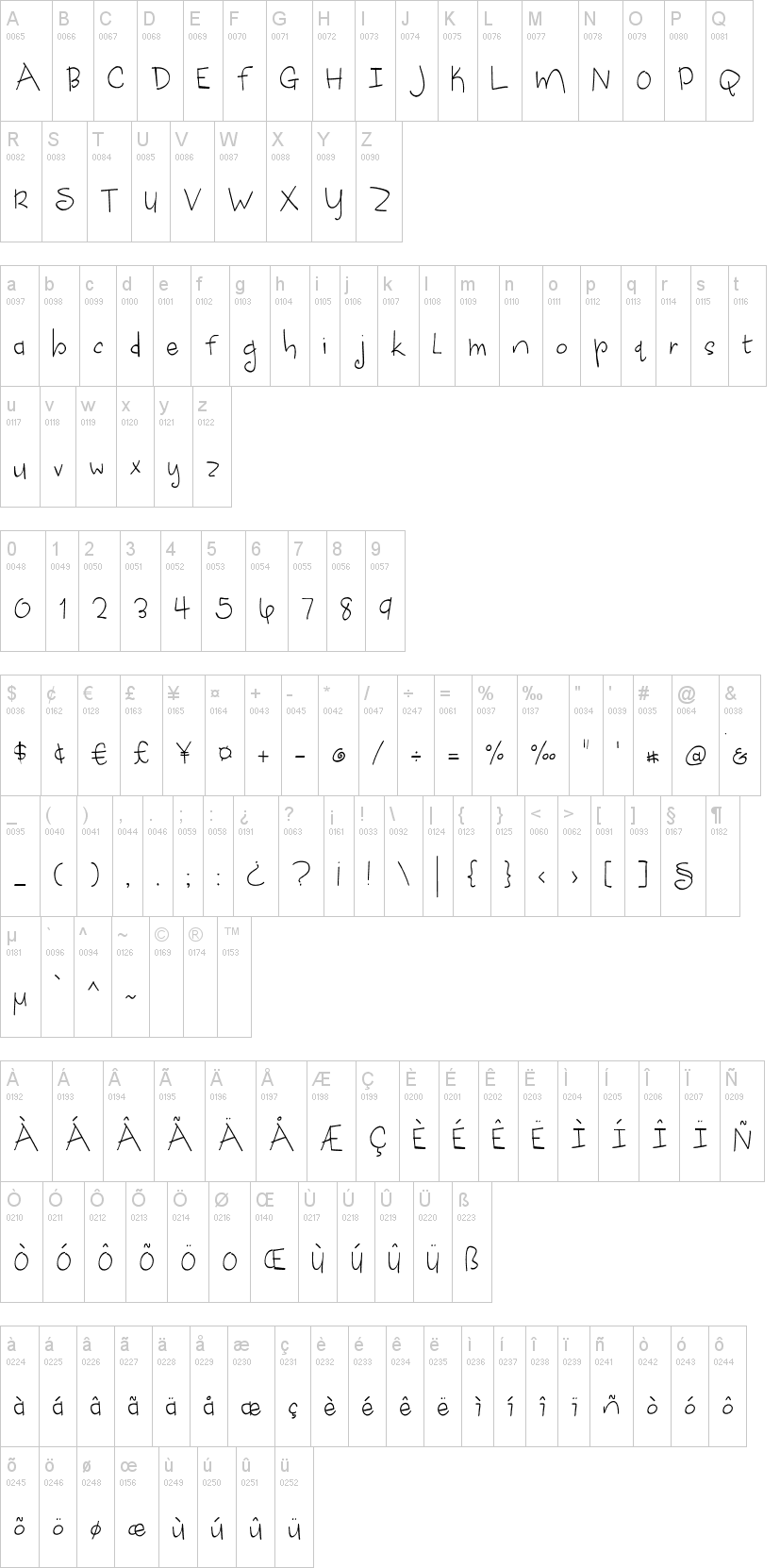
apple cider daydreams
Embrace the Whimsical Charm of Apple Cider Daydreams Font
Created by the talented designer Sarah Smith in 2022, Apple Cider Daydreams font embodies a playful and whimsical spirit, making it an excellent choice for various creative projects. Ideal for greeting cards, children’s books, and imaginative branding, this font adds a delightful touch to any design.
The Inspiration Behind Apple Cider Daydreams Font
The inspiration for Apple Cider Daydreams comes from the warmth and nostalgia of autumn days spent sipping cider. Sarah Smith has skillfully blended playful curves and unique character designs to create a font that inspires creativity and joy. Its unique visual personality can enliven any project.
Versatile Applications for Apple Cider Daydreams Font
This font is perfectly suited for a wide range of applications, including children’s book covers, party invitations, branding elements, and social media graphics. With its whimsical charm, Apple Cider Daydreams can elevate the aesthetic of any design project and resonate with audiences of all ages.